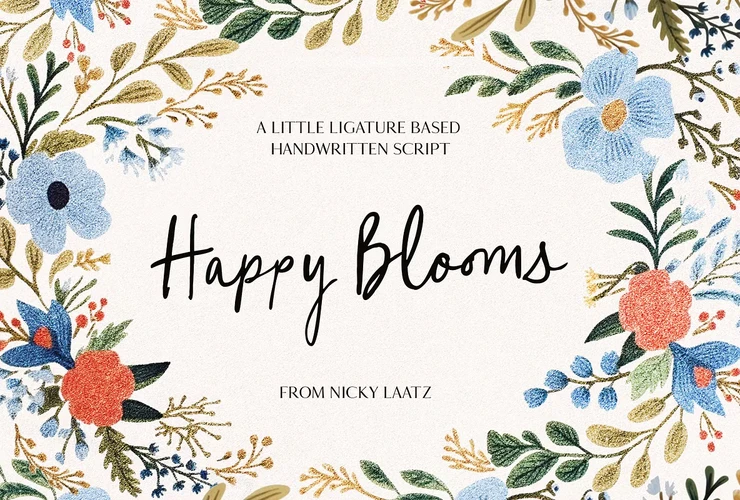
Happy Blooms Script: Adding Whimsy to Your Designs
Happy Blooms Script is a delightful typeface that brings a touch of playfulness and charm to any project. This whimsical script is perfect for greeting cards, illustrations, and so much more. Its built-in ligatures and hidden doodles make it a versatile choice for designers looking to add a bit of magic to their work.
Why Choose Happy Blooms Script?
Happy Blooms Script isn’t just a font; it’s a creative tool that breathes life into your designs. Whether you’re crafting a heartfelt greeting card or adding a personal touch to illustrations, Happy Blooms Script offers the perfect blend of whimsy and elegance.
Here’s what makes Happy Blooms Script stand out:
Playful and Whimsical: With its hand-drawn feel, this script adds a fun and lighthearted touch to any project.
Built-In Ligatures: The font comes to life with its built-in ligatures. Make sure your Opentype Ligatures are enabled in your design app to fully enjoy this feature.
Versatile Applications
While originally intended for greeting cards and illustrations, Happy Blooms Script’s versatility extends far beyond. Its charming and playful nature makes it ideal for a wide range of projects, including:
Social Media Graphics: Add a personal and engaging touch to your posts.
Invitations and Stationery: Perfect for creating fun and inviting designs for events and celebrations.
Branding: Inject a bit of personality into your branding materials with this unique script.
Language Support